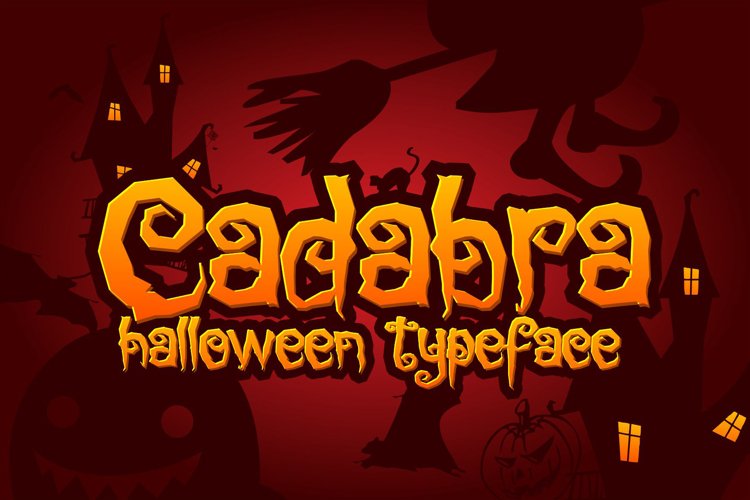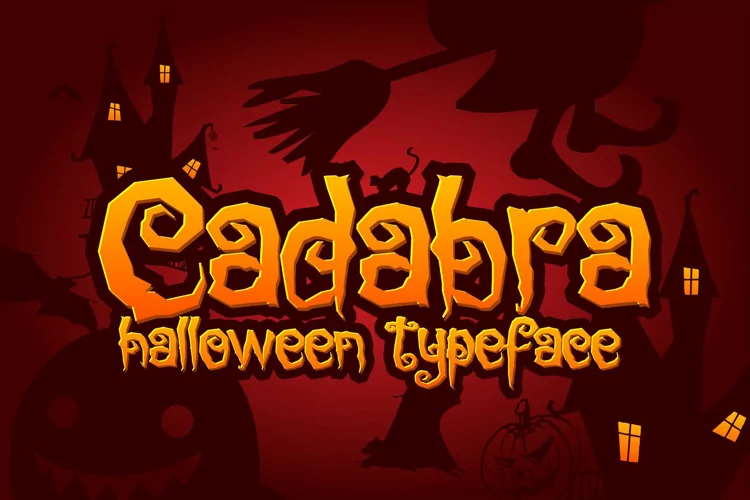
Cadabra | Halloween Typeface
Cadabra
Cadabra is a font created to complement your Halloween Party. This font is very strong character. Scar, Horror, and Fear. This font is perfect for making Halloween poster or flyer.